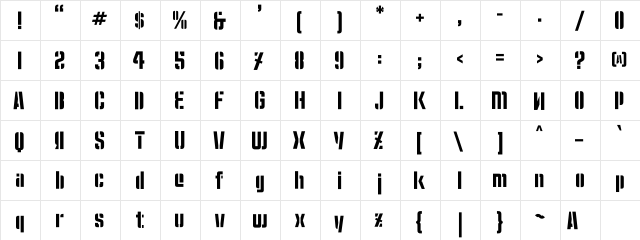
Moshka Stencil
| Style | Stencil |
| Foundry | Julius Woodard |
| Designer | Julius Woodard |
Design Context for Moshka Typeface
Moshka borrows the utilitarian aesthetic of stencil lettering, with its characteristic cutaways and no-frills construction lending an industrial edge.
Ideal for industrial branding, streetwear, military-adjacent aesthetics, and urban signage projects.
Pro Tip: Pair Moshka with raw, utilitarian design elements — exposed concrete textures, flat colour, and minimal ornamentation suit it well.